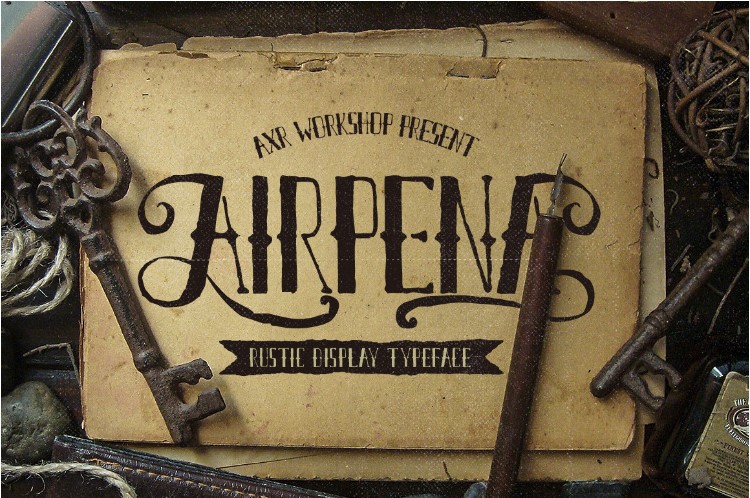
Airpena Rustic Display Font
Airpena Rustic Display Font comes underneath the class of medium fonts. This typeface is broadly used in adobe and it is also extensively used for its pairing capabilities and additionally for its use inside the advertisements. It’s miles a slender slab serif typeface, together with caps, small caps, numerals, and punctuation. Due to its nod to the beyond.
In addition, baskerville font is an all caps condensed rounded makes lovable emblem fonts, however, it’s also top-notch for packaging, headline, or editorial format. Airpena Rustic Display Font Free With anybody turning into the interior a square frame. But, the areas amongst every letter are defined and each day, making it one of the notable free gift-day fonts available. In case you are a fashion looking for emblem fonts like refrigerator deluxe font to talk a brand‚Äôs message, you remember that that is in no manner a clean challenge.
Download The capitals are the identical vintage glyphs. If a person has an opportunity, you’ll locate it the use of a lower case. In some unspecified times in the destiny, even the top-notch fonts will start to the mixture in, with each typeface starting to appear equal. You’ll be seeking out thru well-known fonts like blow brush font, particular fonts, and new fonts in what seems like an in no manner-finishing quest on your quality preference.